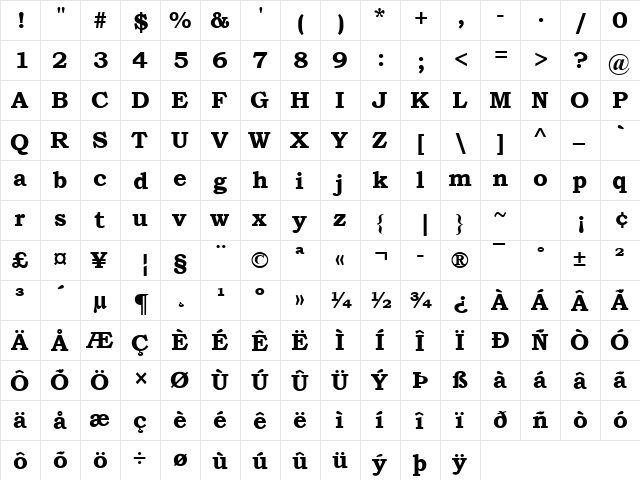
Allman Bros. 1 Regular Font Preview
Allman Bros. 1 Regular
Design Context for Allman Bros. 1 Typeface
Allman Bros. 1 takes a measured approach to typography — its balanced proportions and neutral character make it a reliable workhorse for both digital and print work.
Pro Tip: Use Allman Bros. 1 in both headline and body roles to test its range before committing to a single application.